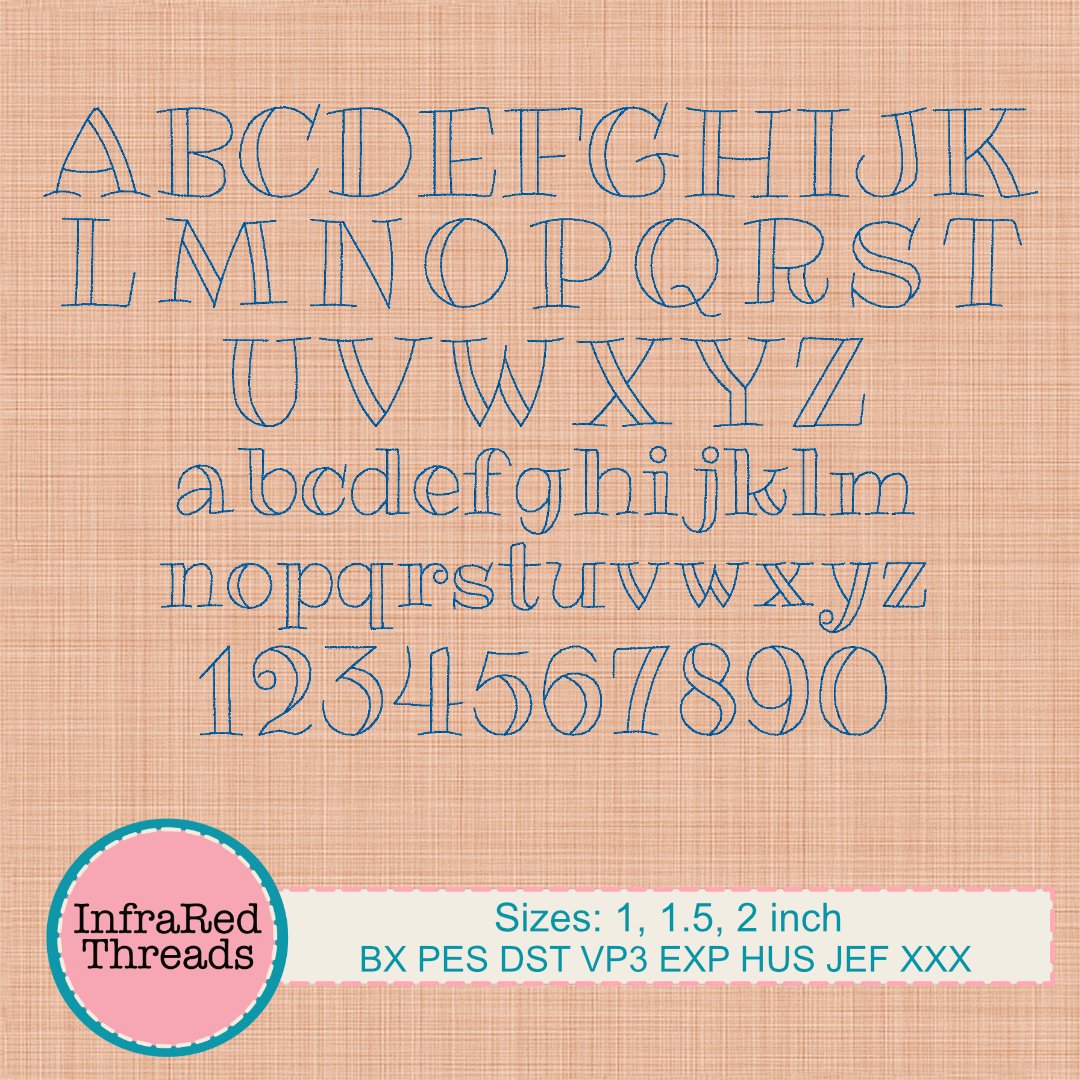
Hazel Bean Embroidery Font – Light Bean Stitch Alphabet in 3 Sizes
The Hazel Bean Font is a lightly stitched embroidery alphabet with a playful serif style and thin bean stitch lines. Perfect for vintage-inspired projects, subtle personalization, and lightweight fabrics, this font maintains legibility while keeping a minimal, airy feel. Ideal for crafting, monograms, or decorative text where a classic yet whimsical look is desired. Includes uppercase and lowercase letters in three popular sizes, plus BX format for keyboard ease.